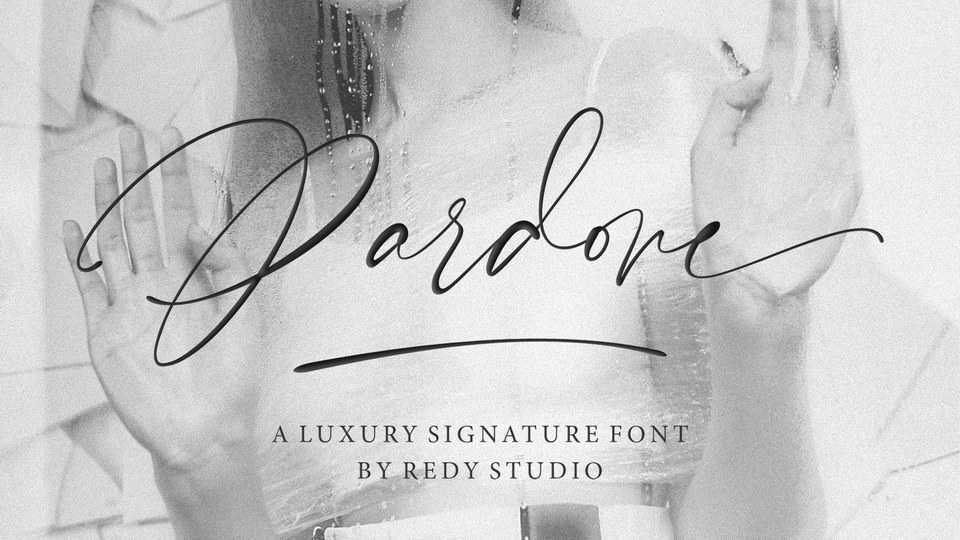
Download Pardone font, a luxury signature typeface every single letters have been carefully crafted to make your text looks natural. Pardone is designed to look perfect fit for signature logos.
Designer: Redy Studio